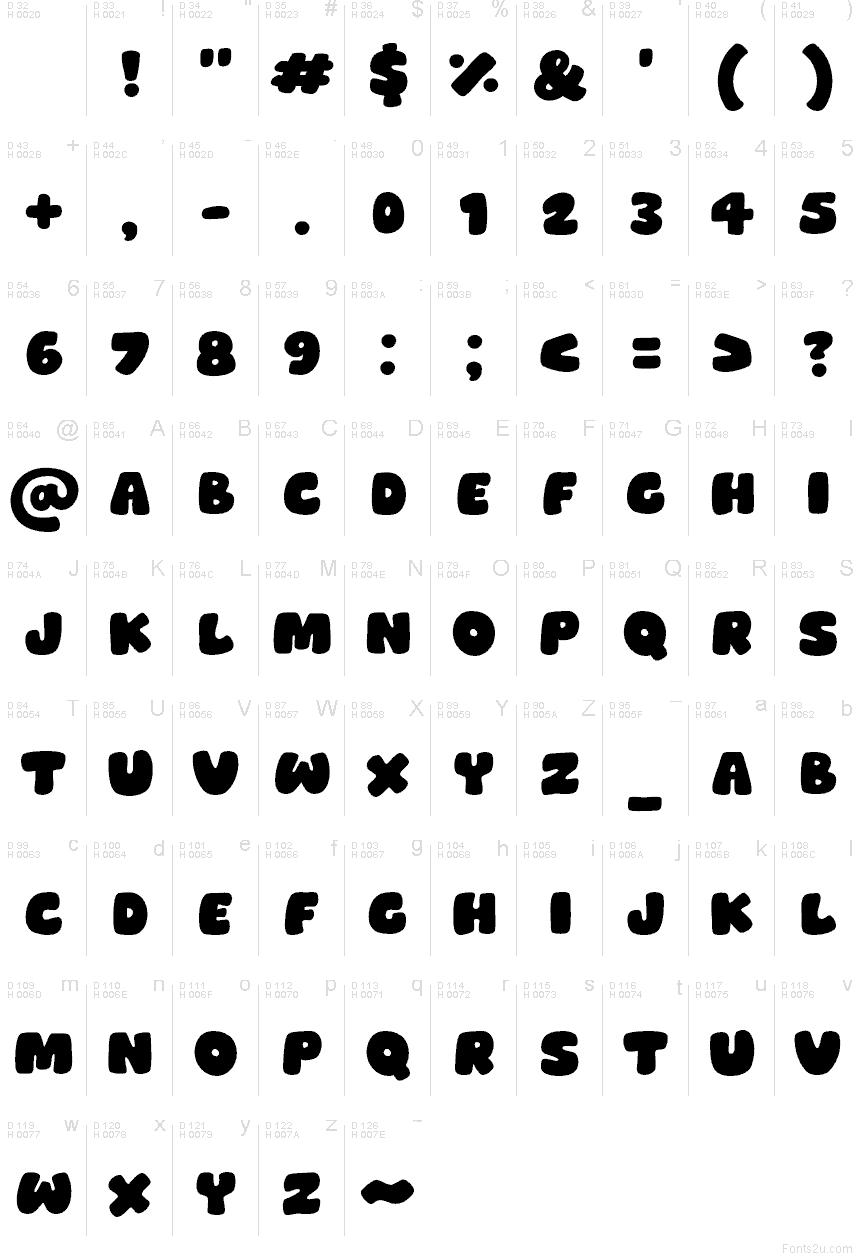
Stival Marlon
Stival Marlon font by Origin Type is a free cartoon display typeface that looks like it’s been puffed up with air and dipped in ink. Its rounded, pillowy shapes and tight rhythm create a bold, bouncy line of text that feels friendly and a little mischievous, like foam letters stuck to a bath wall. The heavy weight makes every word land with a soft thud, easy to read even at a glance.
Using Stival Marlon, headlines instantly feel playful and approachable, so it shines on kids’ book covers, birthday invitations, toy packaging, YouTube thumbnails, game titles, and classroom posters. This free font loves bright color blocks and simple backgrounds where its chunky forms can really pop. For longer copy, pair it with a clean geometric sans in a lighter weight, and keep Stival Marlon big and loud for titles, logos, and short phrases.